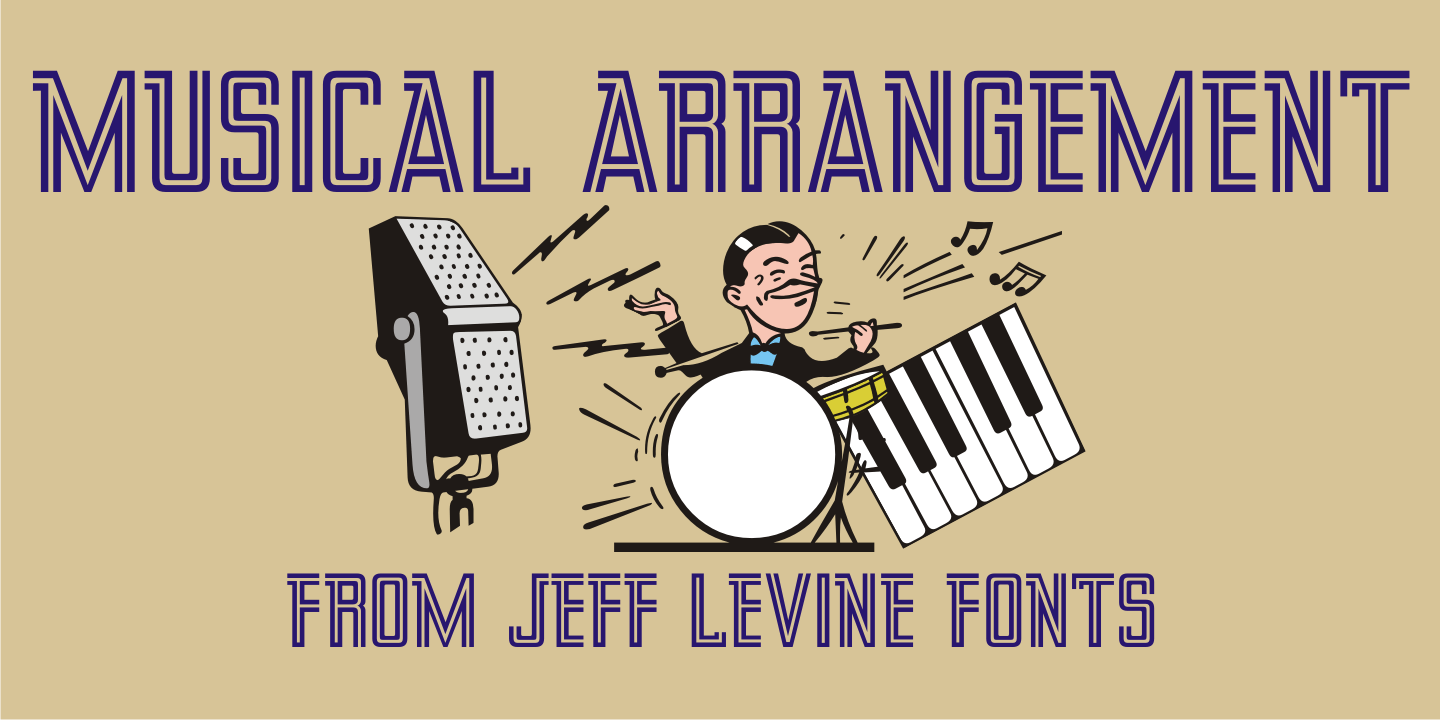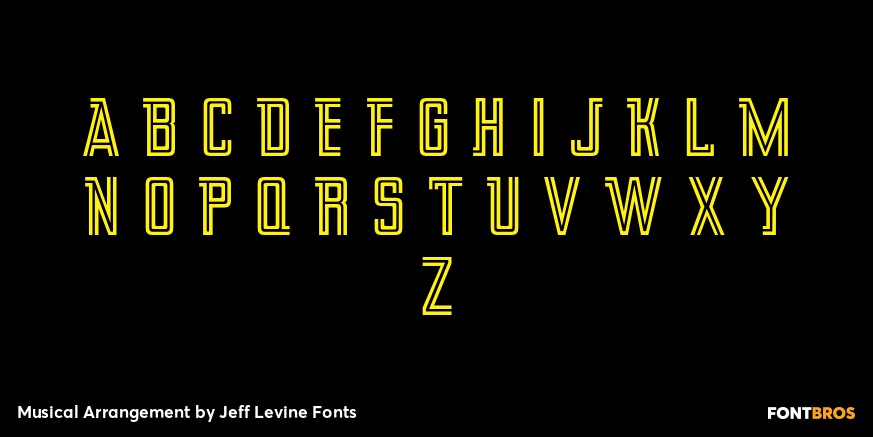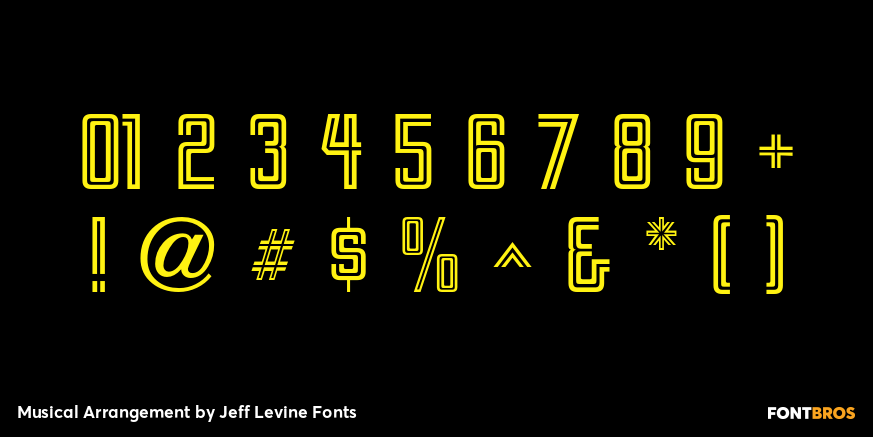
Musical Arrangement
The hand-lettered title on a piece of sheet music for 1938's "Don't Be That Way" (as recorded by Benny Goodman) featured squared letters with rounded corners, slight variants in line thickness and interesting "overhangs".
Additionally, some letters closed off on one end while others were opened, giving the impression of a slight "maze" effect. This unique song title was enough of an inspiration to be turned into Musical Arrangement JNL.